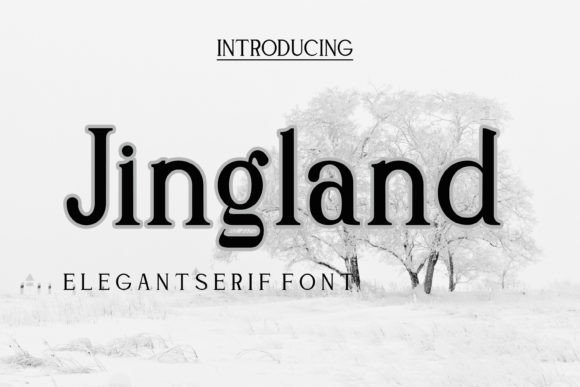
Unlock the Elegance of Your Designs with Jingland Font
Have you ever found yourself stuck in a creative rut, searching for the perfect font to elevate your design from ordinary to extraordinary? You’re not alone. As designers, we’ve all been there – pouring over font libraries, testing out different styles, and hoping to stumble upon that elusive ‘wow’ factor.
Enter Jingland Font, a modern serif font that’s about to become your new go-to for adding a touch of luxury and style to your projects. With its classy design and access to a wide range of OpenType features, this font is the perfect tool for designers looking to add a sophisticated edge to their work.
Jingland Font Key Features
- Unique Characteristics: Jingland Font features a unique blend of traditional and modern elements, with intricate details and subtle nuances that set it apart from other fonts.
- Style Variations: Jingland Font comes in multiple styles, including regular, bold, italic, and bold italic, providing users with a range of options to suit their design needs.
Jingland Font Review
I recently had the chance to work with the Jingland Font, and I must say it’s a unique addition to any design project. ✨ The font’s sleek and modern aesthetic makes it perfect for contemporary designs, from websites to mobile apps. Its clean lines and minimalist approach create a sense of sophistication and professionalism.
One of the standout features of the Jingland Font is its versatility. ✨ It’s available in multiple weights, from light to bold, allowing designers to create a range of visual effects and emphasize key elements in their design. Additionally, the font’s large character set and extended language support make it suitable for global audiences.
- Sleek and modern aesthetic
- Available in multiple weights
- Large character set and extended language support
- May not be suitable for traditional or vintage designs
- Some users may find the font too minimalist
- Requires careful use to avoid visual clutter
Overall, the Jingland Font is a solid choice for designers looking for a modern and versatile font. While it may not be perfect for every project, its strengths make it a valuable addition to any design arsenal. With careful use, the Jingland Font can help elevate your designs and leave a lasting impression.
Tips: Use the Jingland Font for creating visually appealing headings and titles in your Canva designs.
Tips: Use the Jingland Font for creating custom typography and logos in your Adobe designs.
Tips: Use the Jingland Font for creating visually appealing presentations and documents.
The Jingland Font is ideal for:
- Creating visually appealing headings and titles.
- Designing custom logos and typography.
- Enhancing presentations and documents with unique font styles.